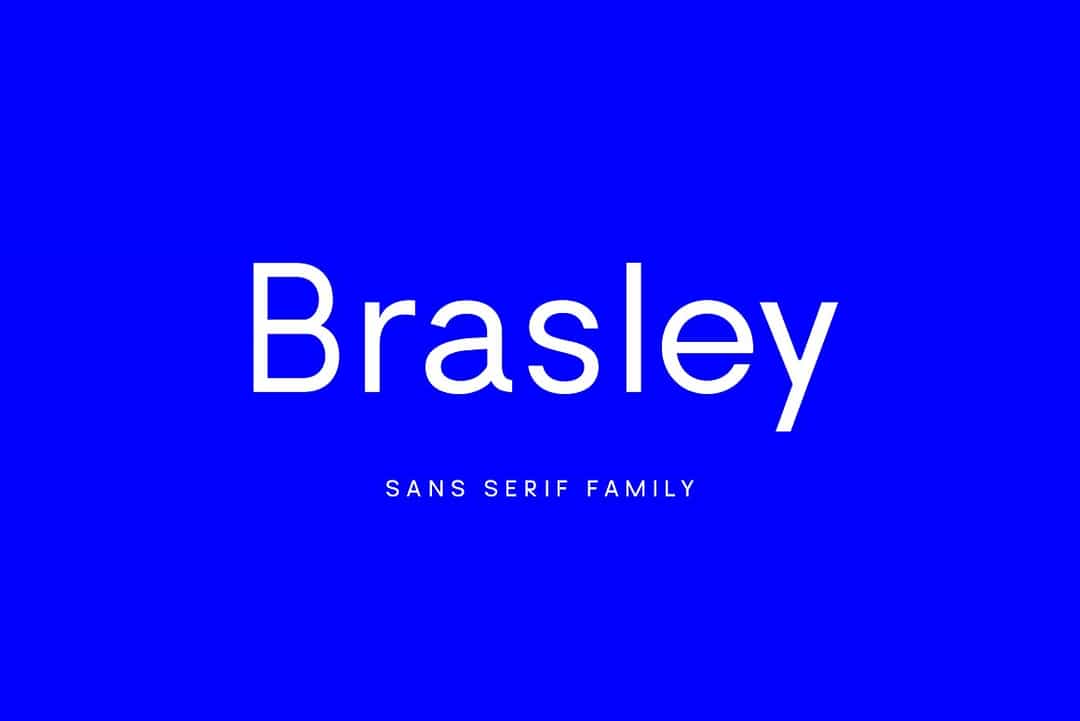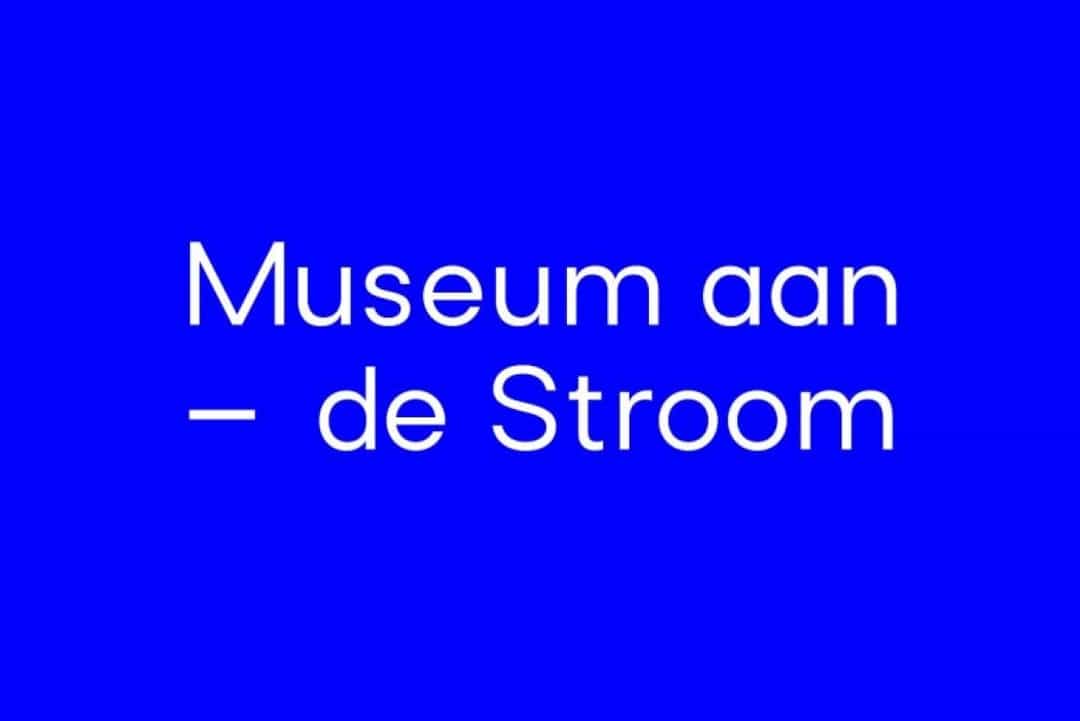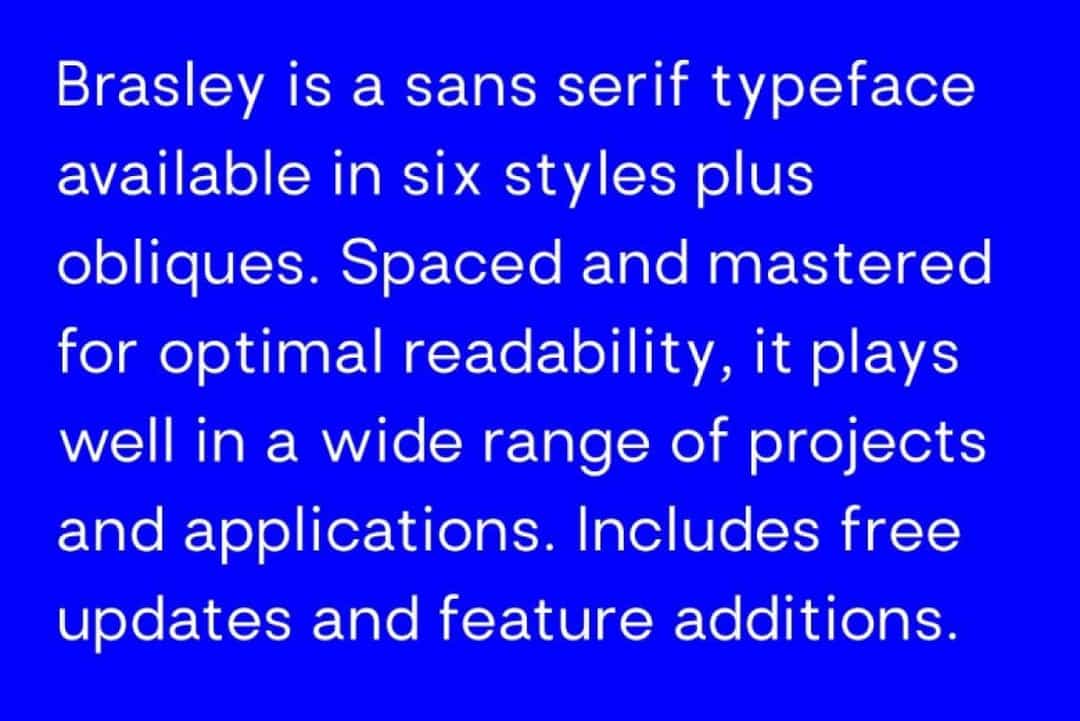
Brasley Font was developed by Belgian designer Nicolas Desle and features masterful and spaced layout for maximum accessibility – it plays well across many designs and applications.